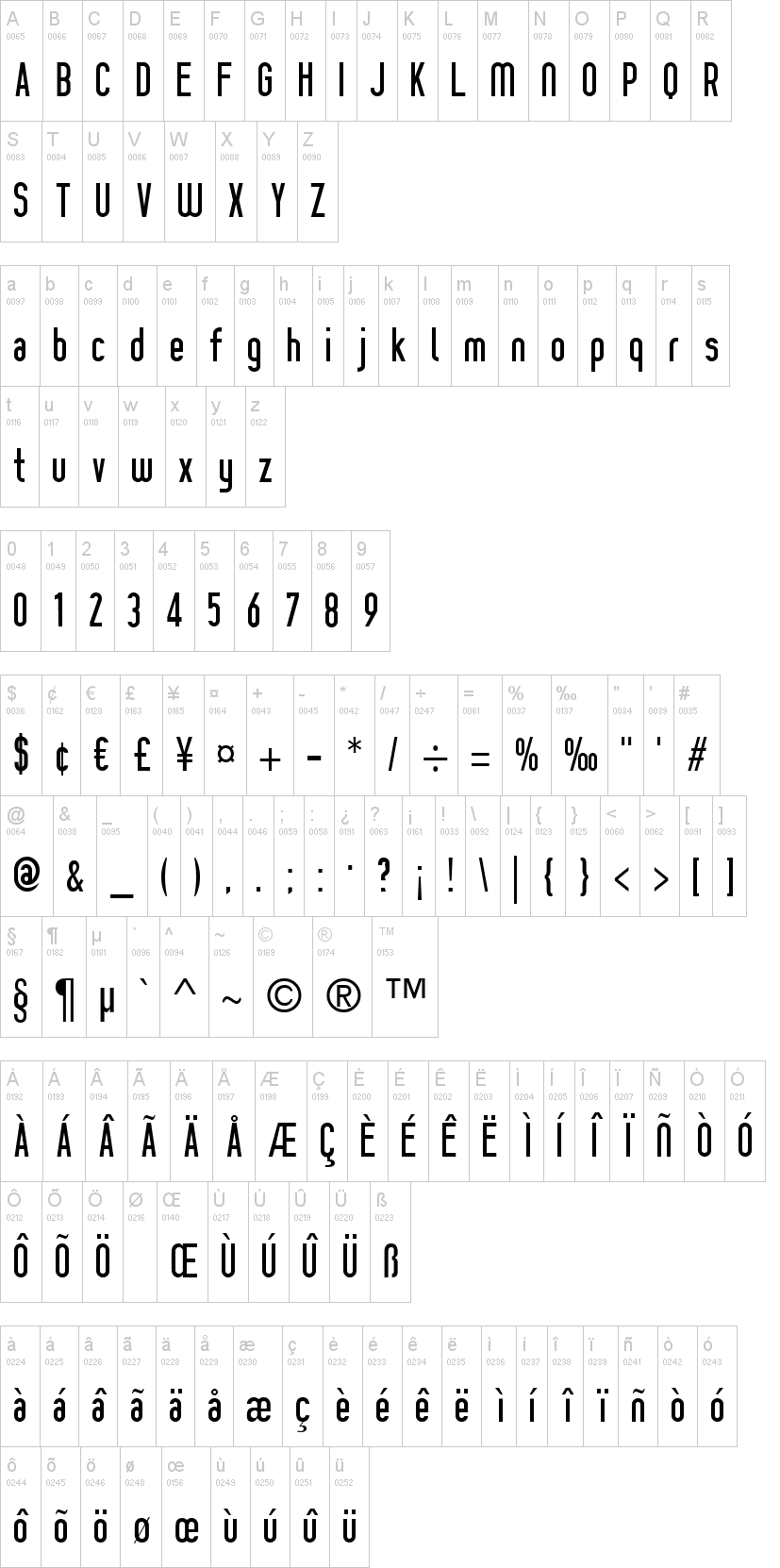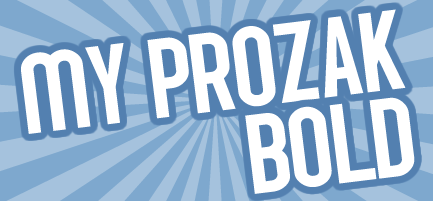
Prozak is a sans serif font, created for captions and text blocks.
Available also in bold and light version, it can be easily used in different situation.